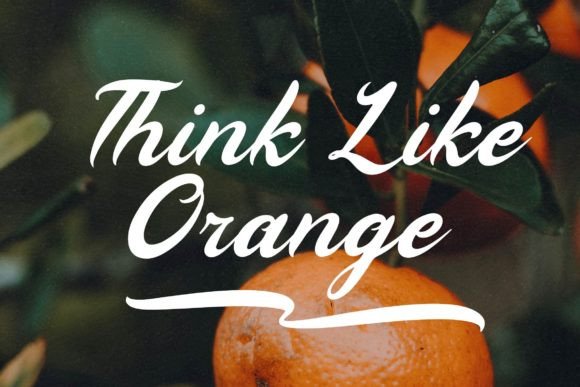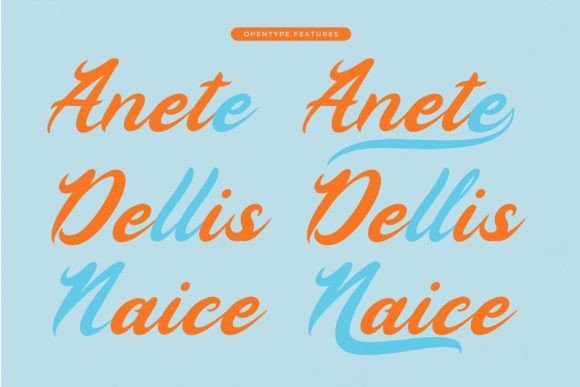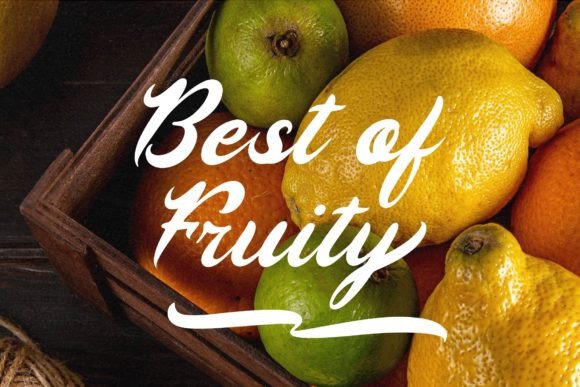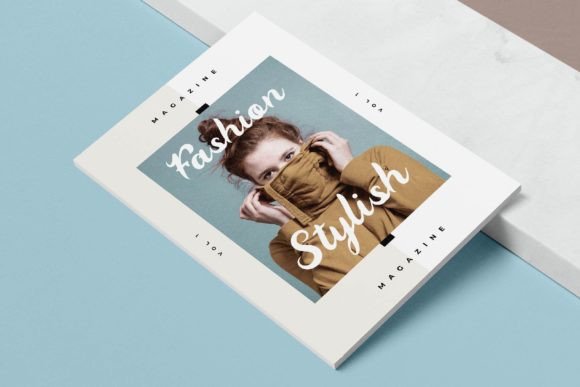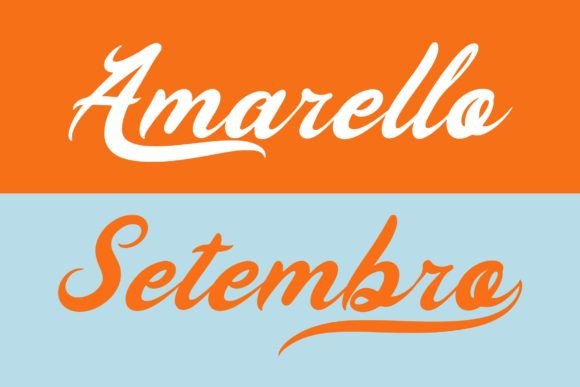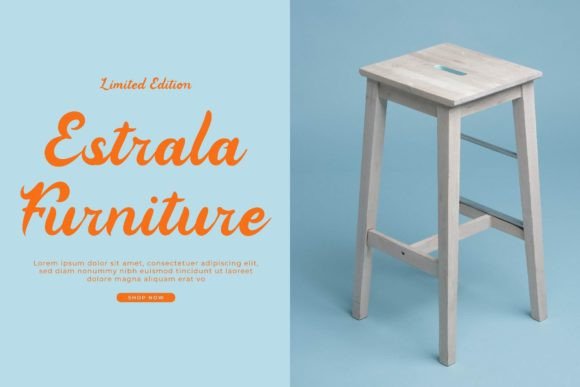
Introduction to Mewtty Font
Mewtty is a hand-drawn script font with a playful and casual style.
It has smooth, flowing letters that look like they were written with a pen The font feels friendly and artistic, making it great for creative projects like greeting cards, logos, or invitations.
Key Features of Mewtty Font
Why Choose Mewtty Font?